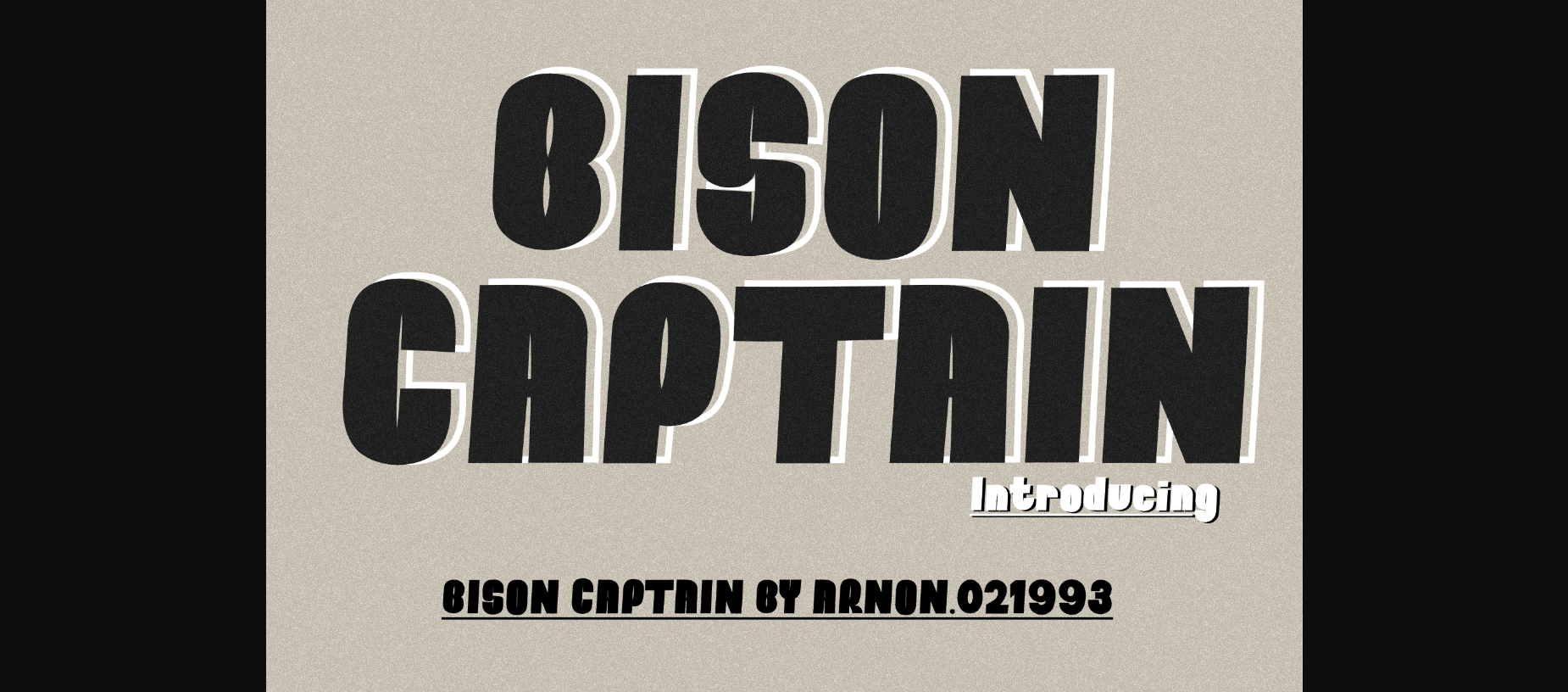
About Bison Captain Font
Bison Captain is a display font and it features a modern and minimalist design, making it versatile for a wide range of design applications. The font’s letterforms are simple yet impactful, making it well-suited for bold headlines, logos, and other display purposes where legibility and visual impact are key. The font’s versatility makes it suitable for a wide range of design projects, including branding, editorial layouts, web design, packaging, and signage.